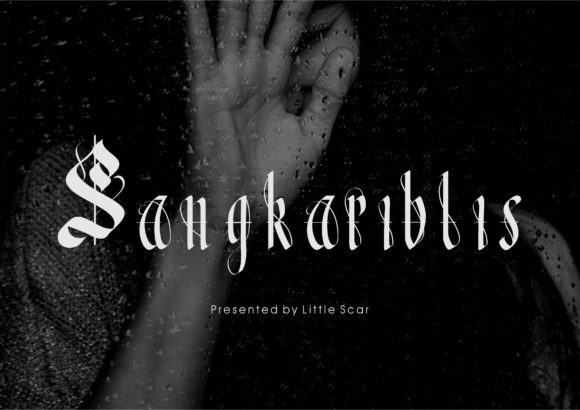
Journey through a realm of letters where intrigue and beauty intertwine. Sangkariblis, a blackletter font, is an artistic masterpiece that captures the essence of mystery and allure. Created by the skilled hands of Little Scar, this font is a tribute to the art of calligraphy, with intricate ligatures and flourishing strokes that evoke a bygone era.
Step into the world of Sangkariblis, where your words transform into captivating works of art. From heartfelt letters to captivating branding, this font adds a touch of enchantment to every project. Its distinctive blackletter style evokes a sense of nostalgia, while its modern interpretation ensures it remains relevant and captivating.
Unleash your creativity with Sangkariblis. Whether you're a designer looking to add a touch of intrigue to your work, a writer seeking to bring your stories to life, or a social media enthusiast looking to make your posts stand out, this font is your perfect companion. With its boundless versatility, the possibilities are endless.
Imagine your words adorned with Sangkariblis, captivating your audience with its timeless charm. Your designs will exude an air of sophistication, your writing will gain a depth of character, and your social media presence will shine with individuality.
Don't settle for ordinary fonts. Embrace the allure of Sangkariblis and let your creativity soar. Discover the endless possibilities that await you as you embark on this typographic adventure. Dive into the world of Sangkariblis today and let your words take center stage.
Sangkariblis: Where art meets expression.